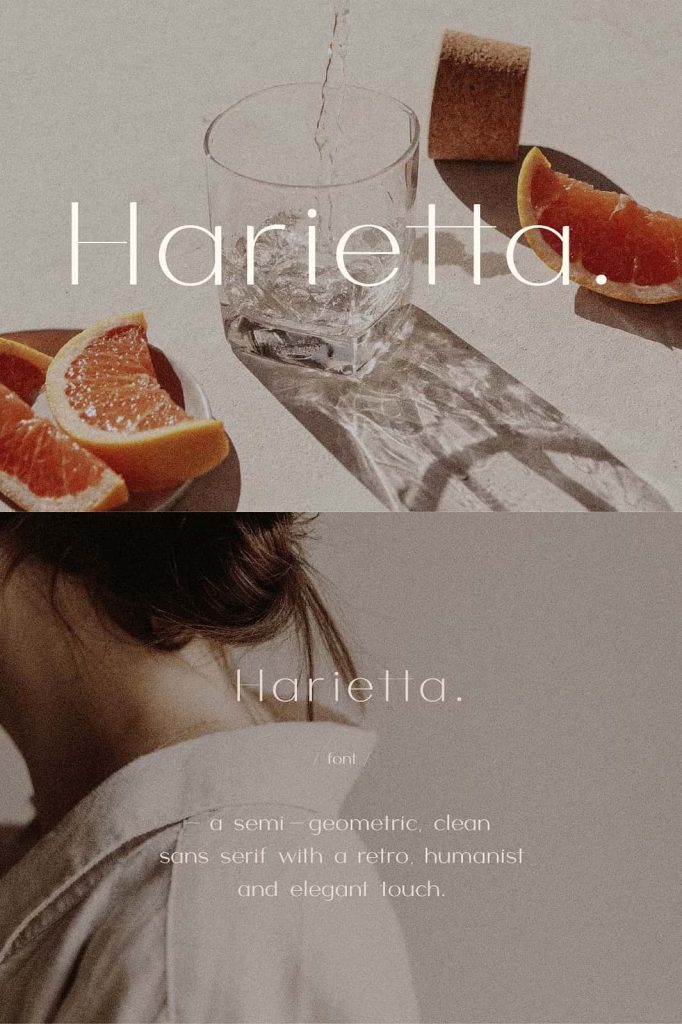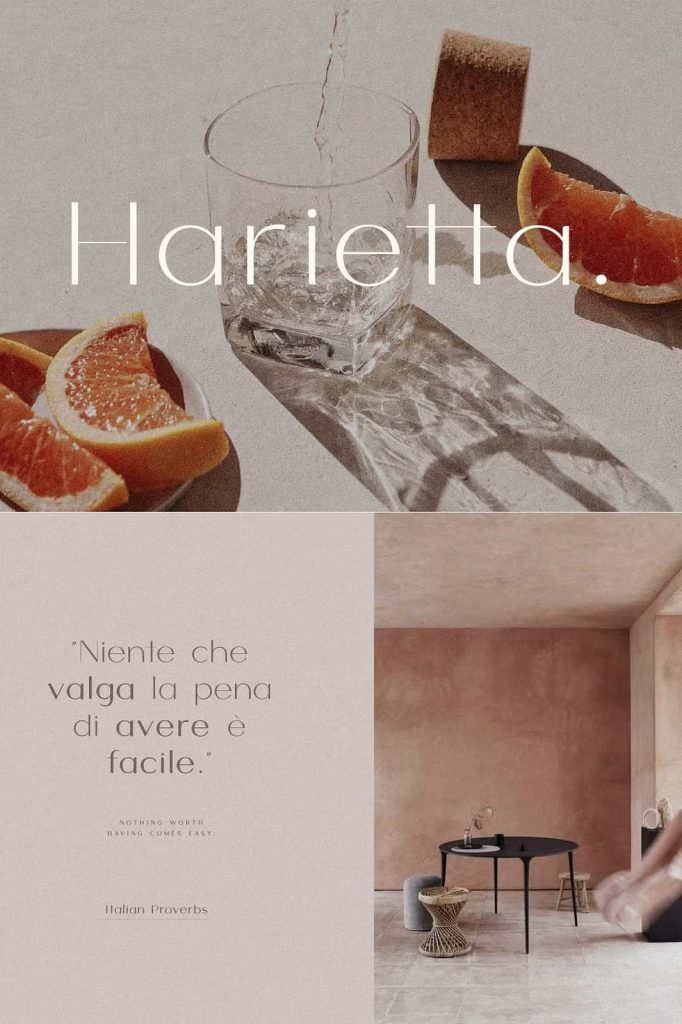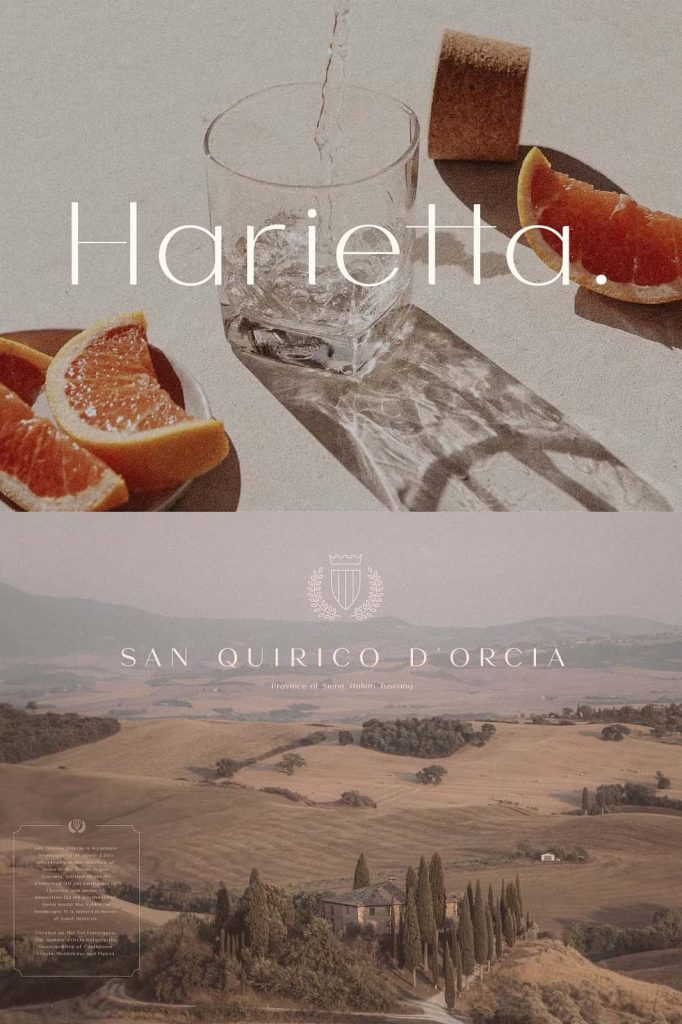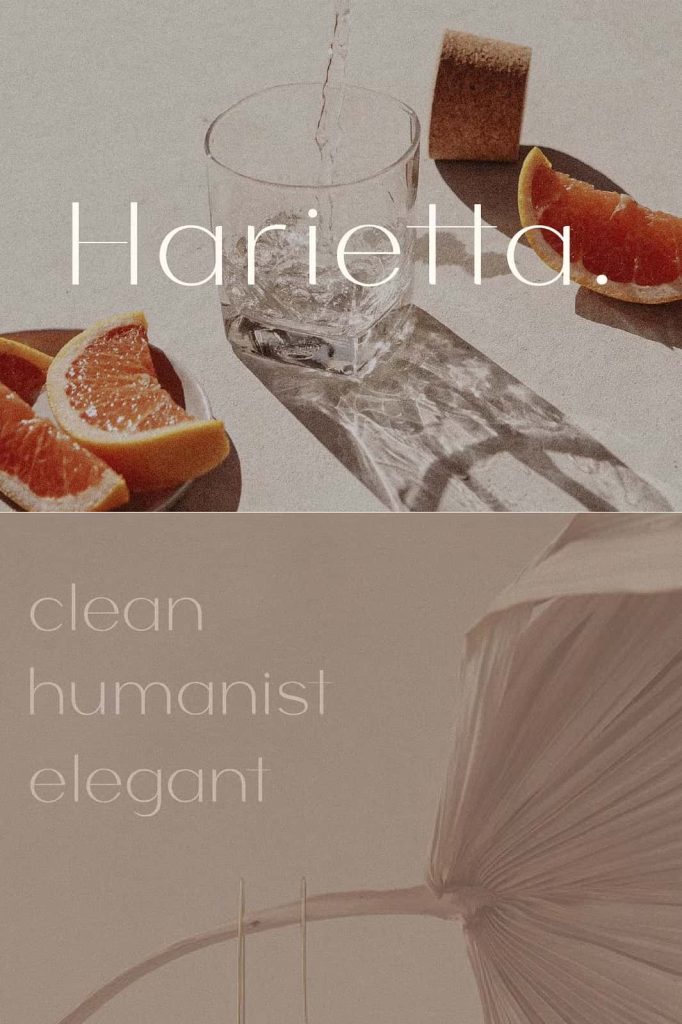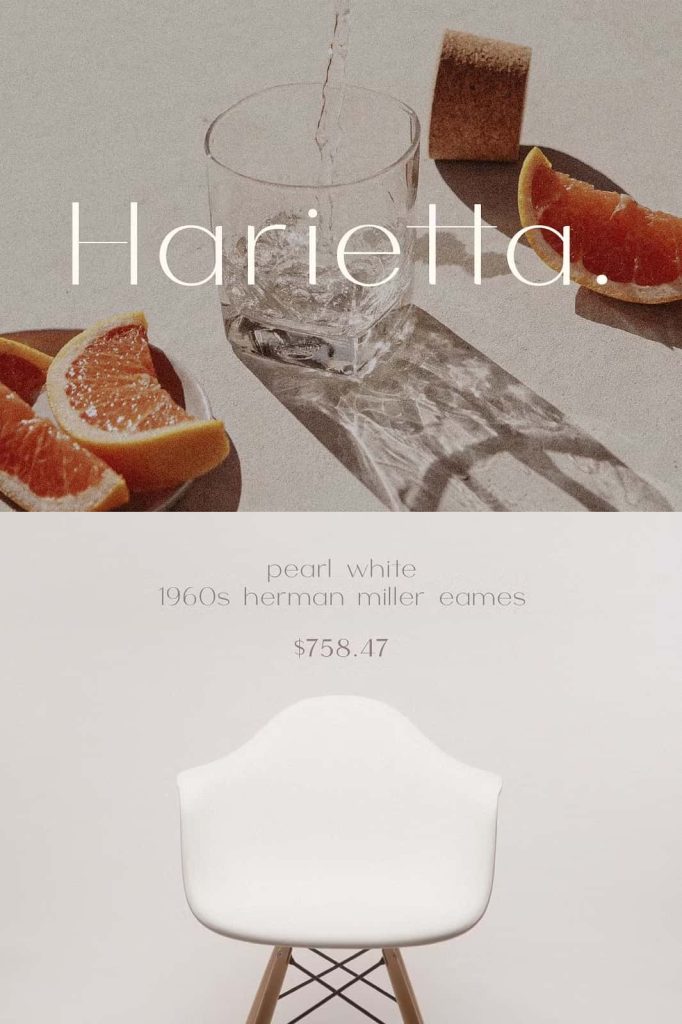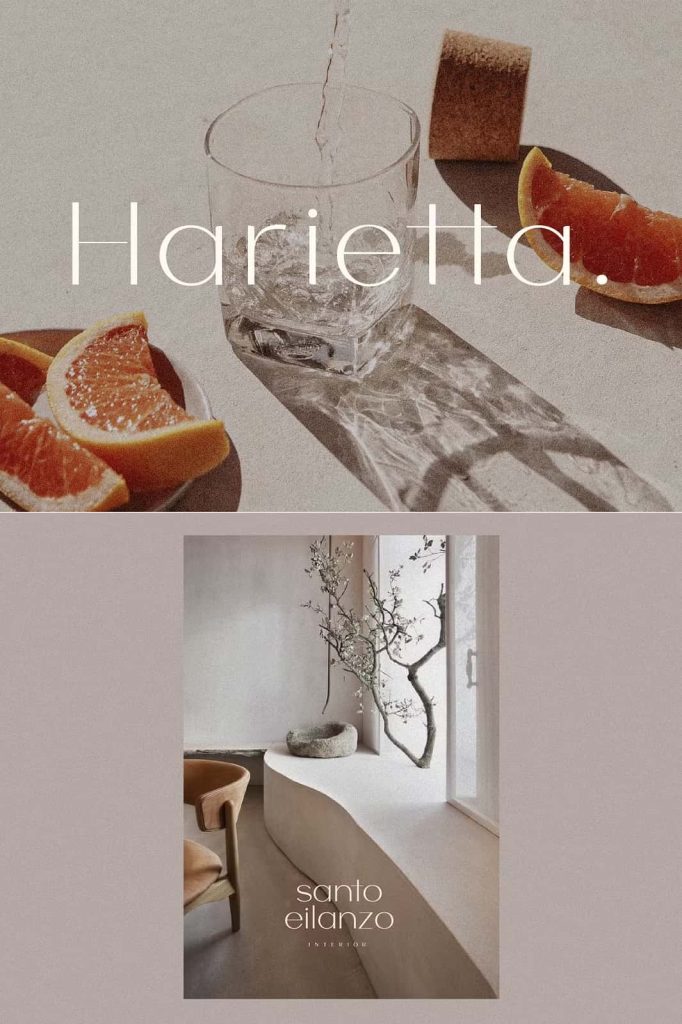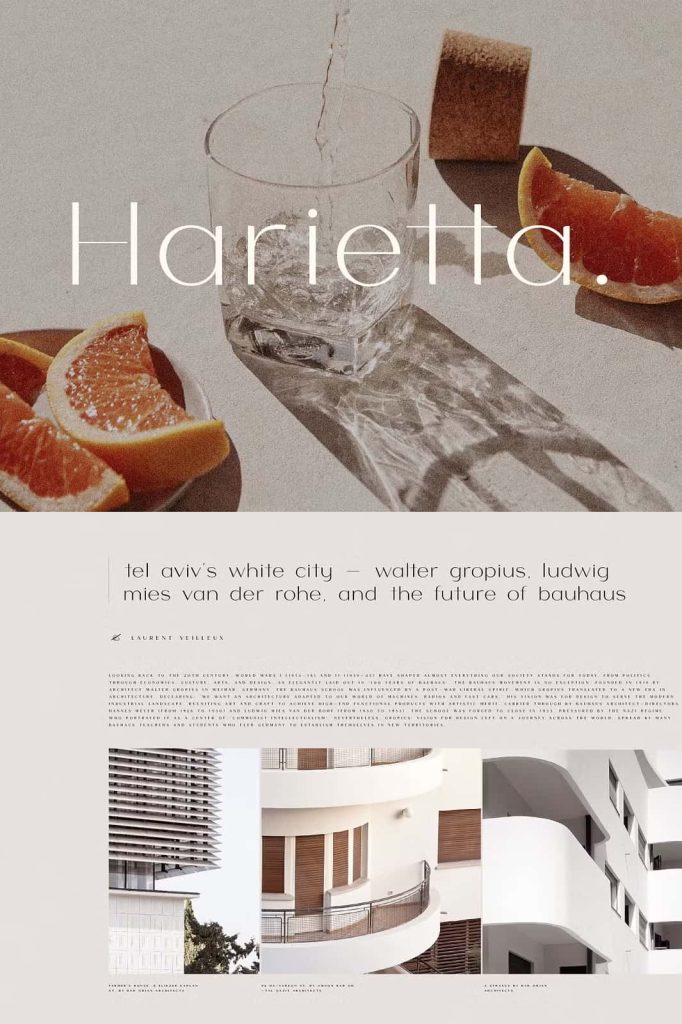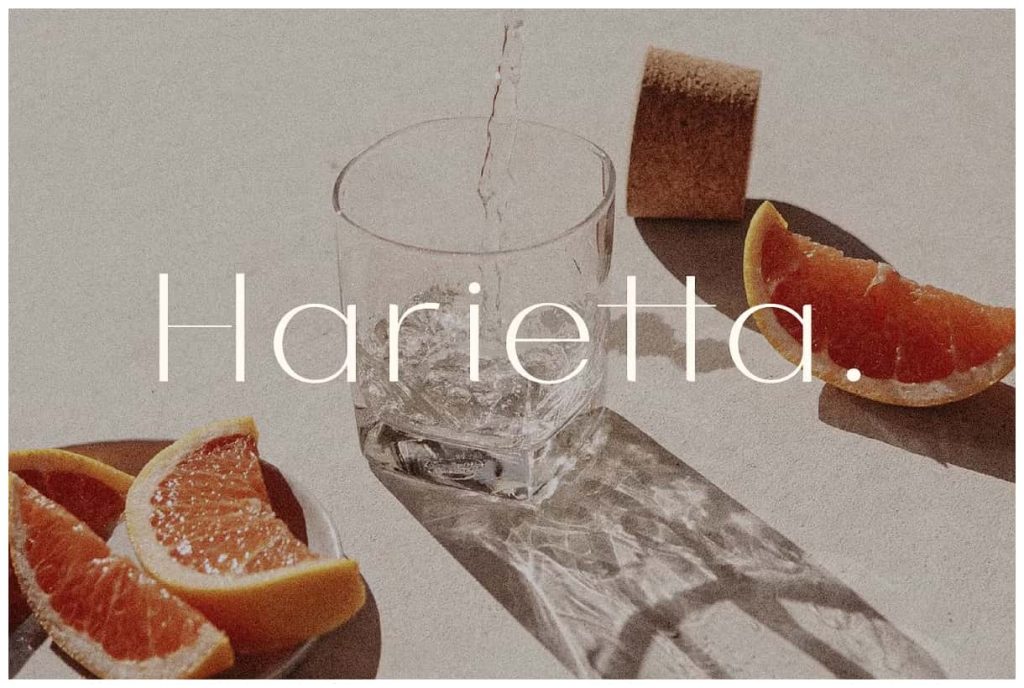
Harietta – Semi-geometric Clean SansleastedMarch 26, 2025Fonts Harietta – a semi-geometric, clean sans serif with a retro, humanist and elegant touch Download